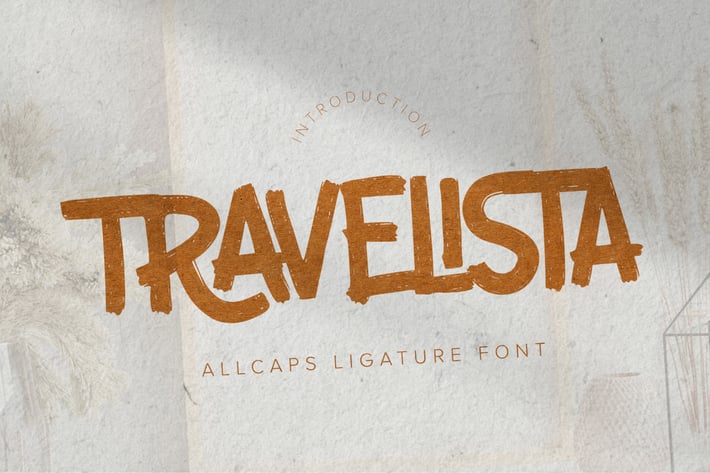
Travelista - All Caps Ligature Font
Hello Everyone, Introduce our new collection Travelista - All Caps Ligature Font and display for posters, packaging, branding, logotype and more.
Travelista font with strong and challenging nuances. very suitable for the title, typography, Poster, magazines, brochures, packaging,Websites and much more for your design needs, making your designs more modern and professional
+ Ligatures